In the fashion industry, font is more than just letters; it’s a statement of style and innovation. One noteworthy font style in this industry is modern fonts fashion bold, which blends minimalism with creativity. Used in branding, media, and high-end design, these fonts redefine sophistication. Want to learn more? Let’s explore!
For inspiration, we’ve gathered 31 bold fashion brand fonts that seamlessly combine elegance with a modern touch for creating stylish brands and striking designs. Choose the ones that suit your vision best!
A combination of sweet elegance and modern flair, Buttercy is perfect for upscale fashion branding, luxurious product packaging, and boutique signage.
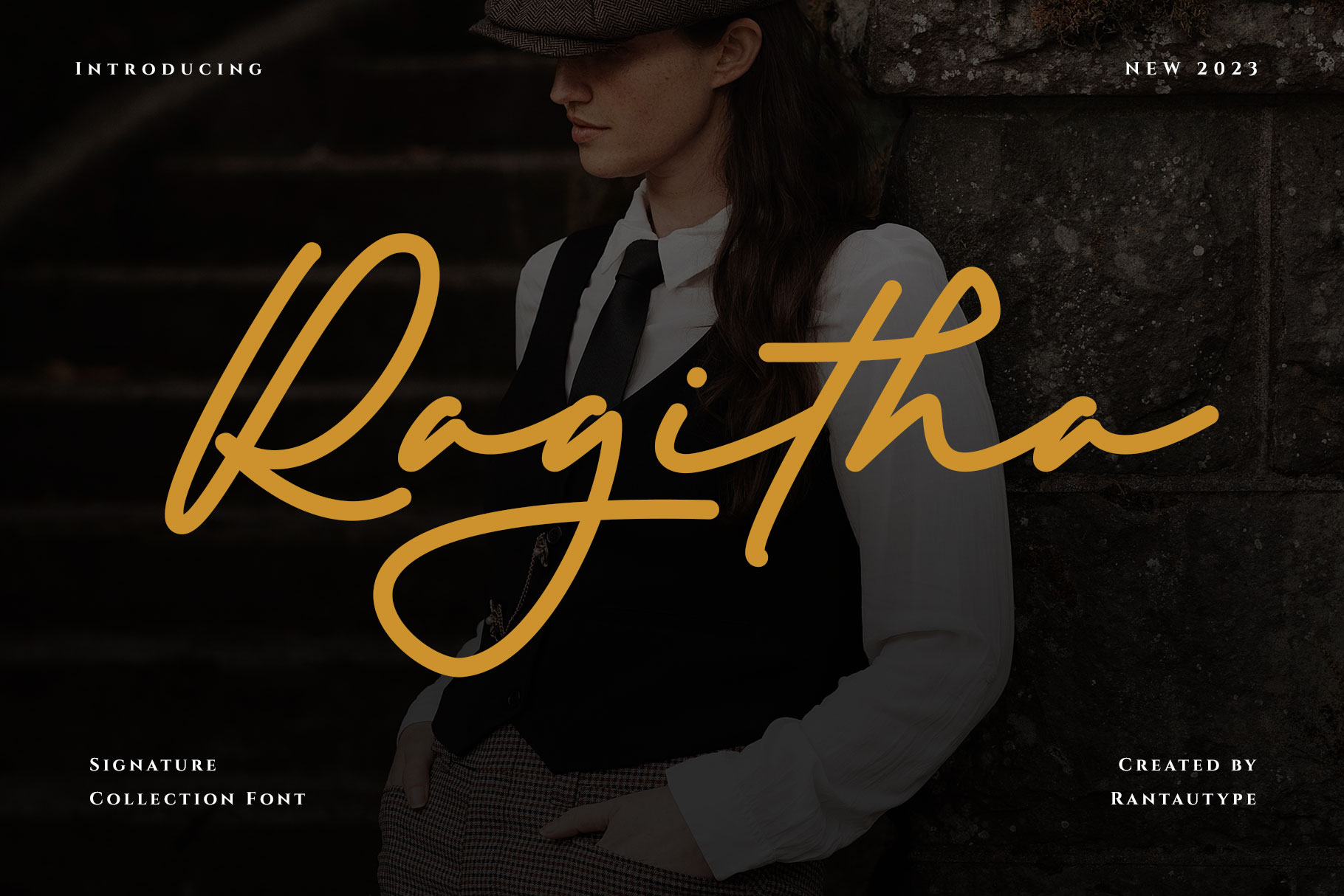
Ragitha’s signature strokes bring an exclusive feel, making it perfect for fashion house branding, influencer logos, and premium promotional material.
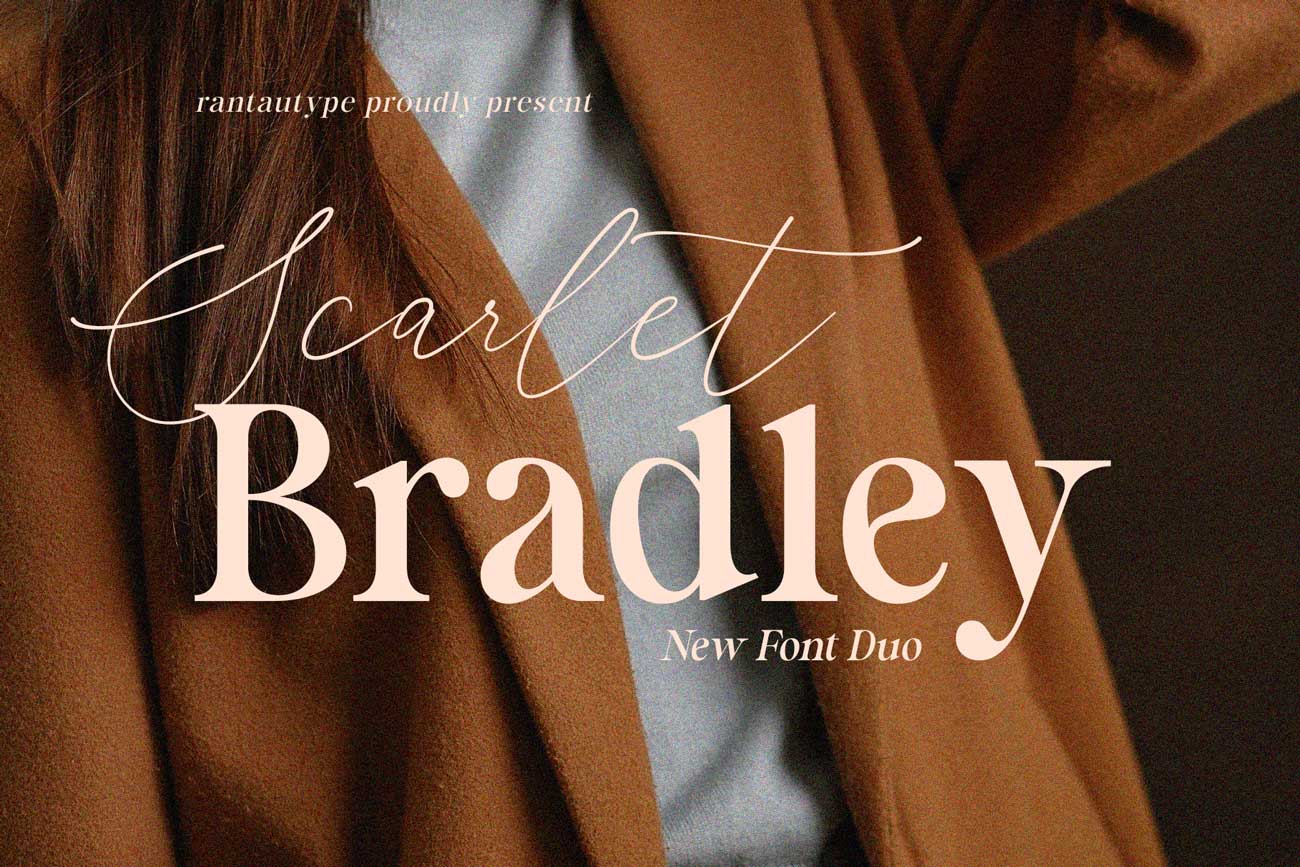
A refined fusion of serif and script styles, Scarlet Bradley is ideal for fashion brand logos, social media graphics, and editorial features in style magazines.
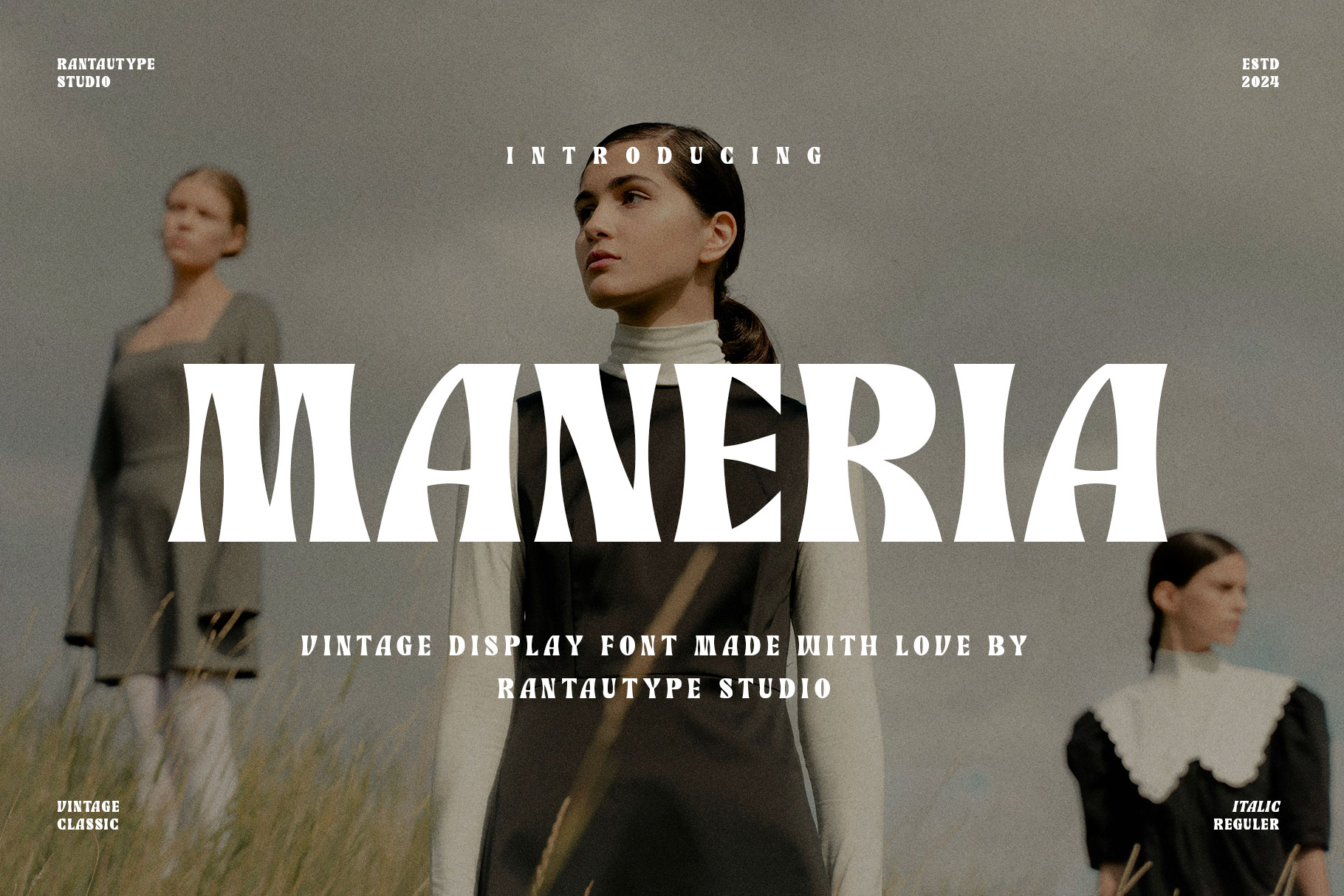
Maneria’s vintage-inspired design works wonders for retro fashion brands, high-street product collections, and nostalgic fashion campaign visuals.
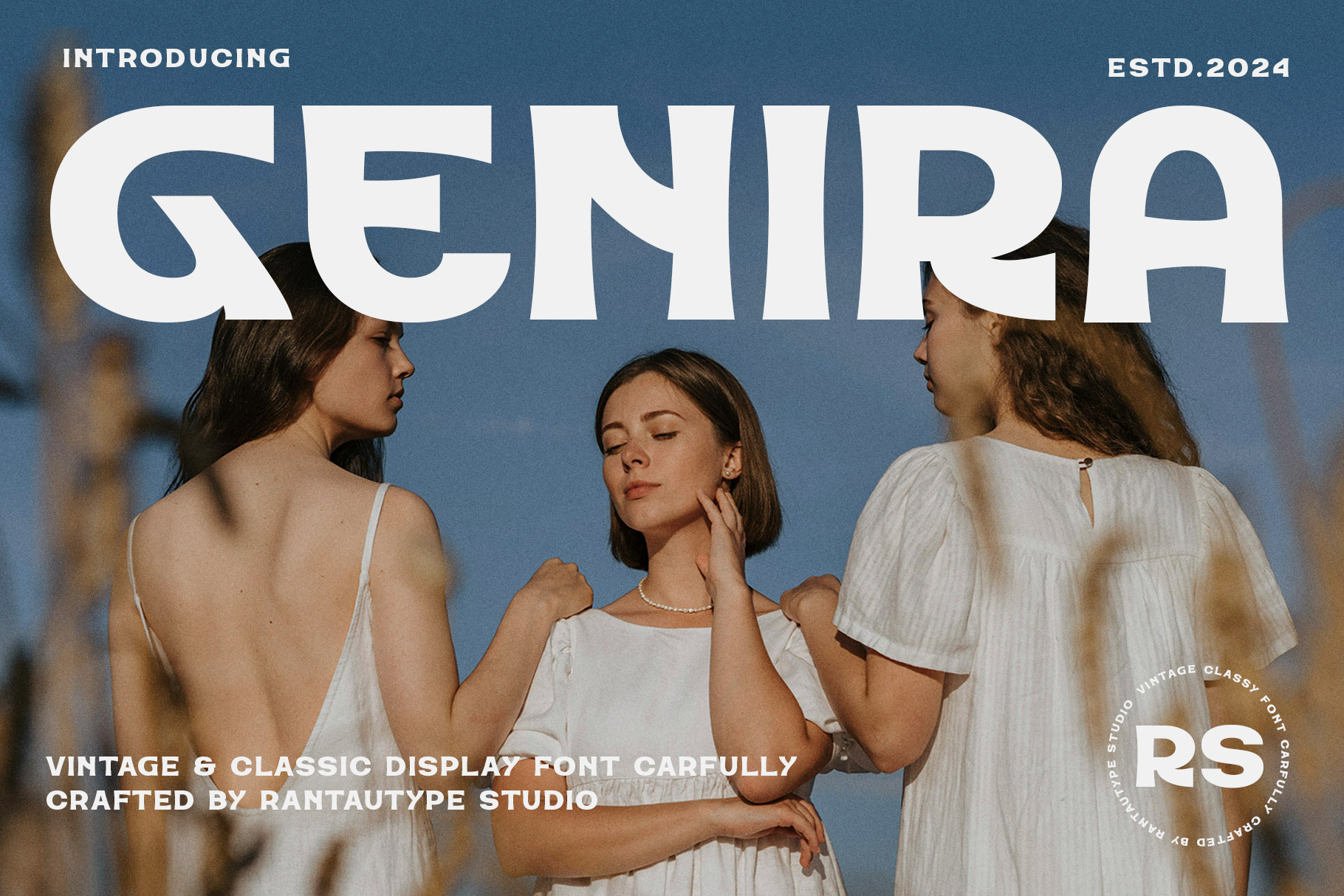
Exuding timeless charm, Genira is great for luxury fashion brand logos, vintage-inspired collections, and editorial pieces that celebrate classic fashion aesthetics.
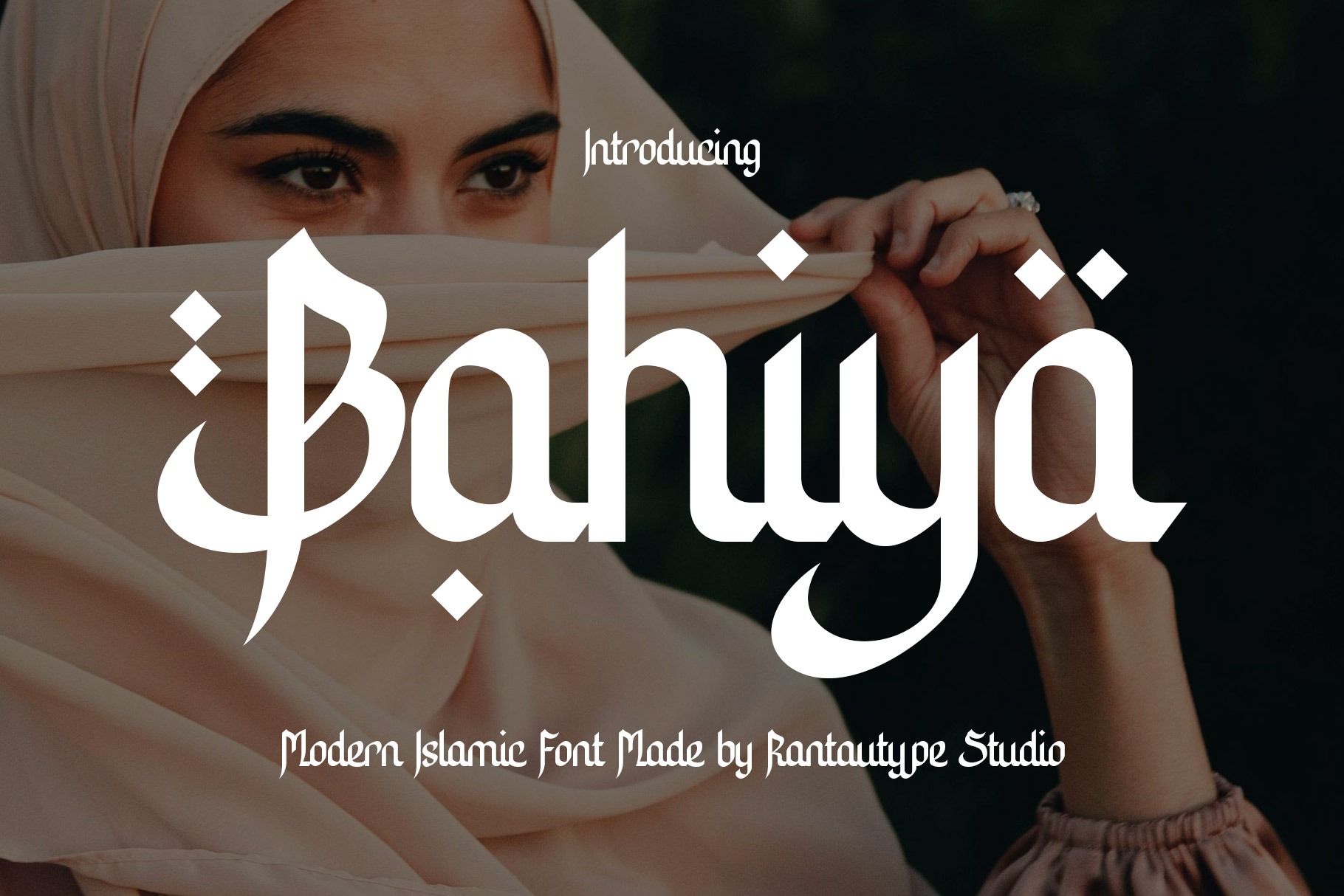
Bahiya’s fusion of traditional calligraphy and modern design is perfect for culturally rich fashion collections, luxury brand logos, and unique campaigns.
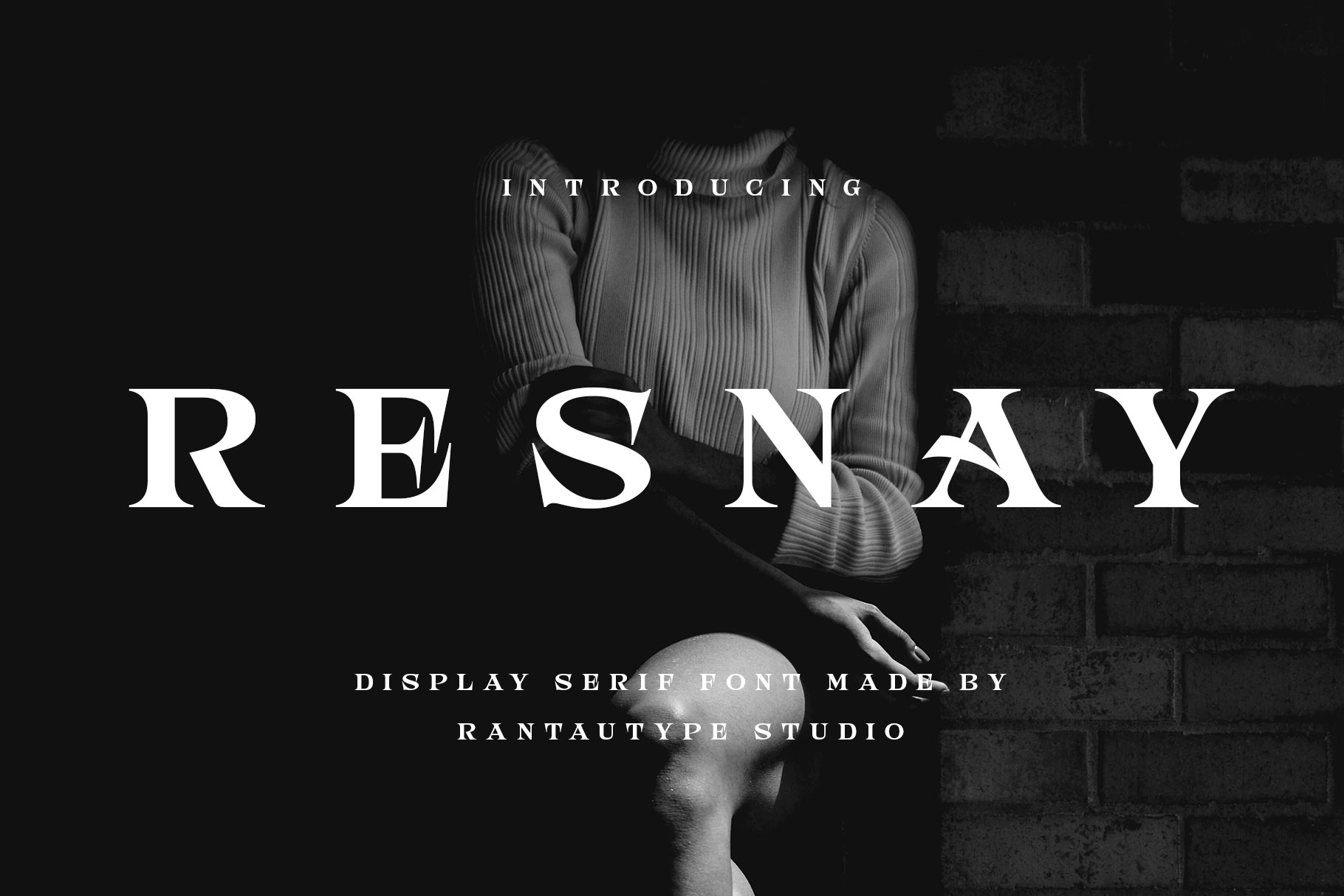
Resnay’s bold presence is well-suited for fashion ads, magazine covers, and luxury product labels, creating a sophisticated yet eye-catching impact.
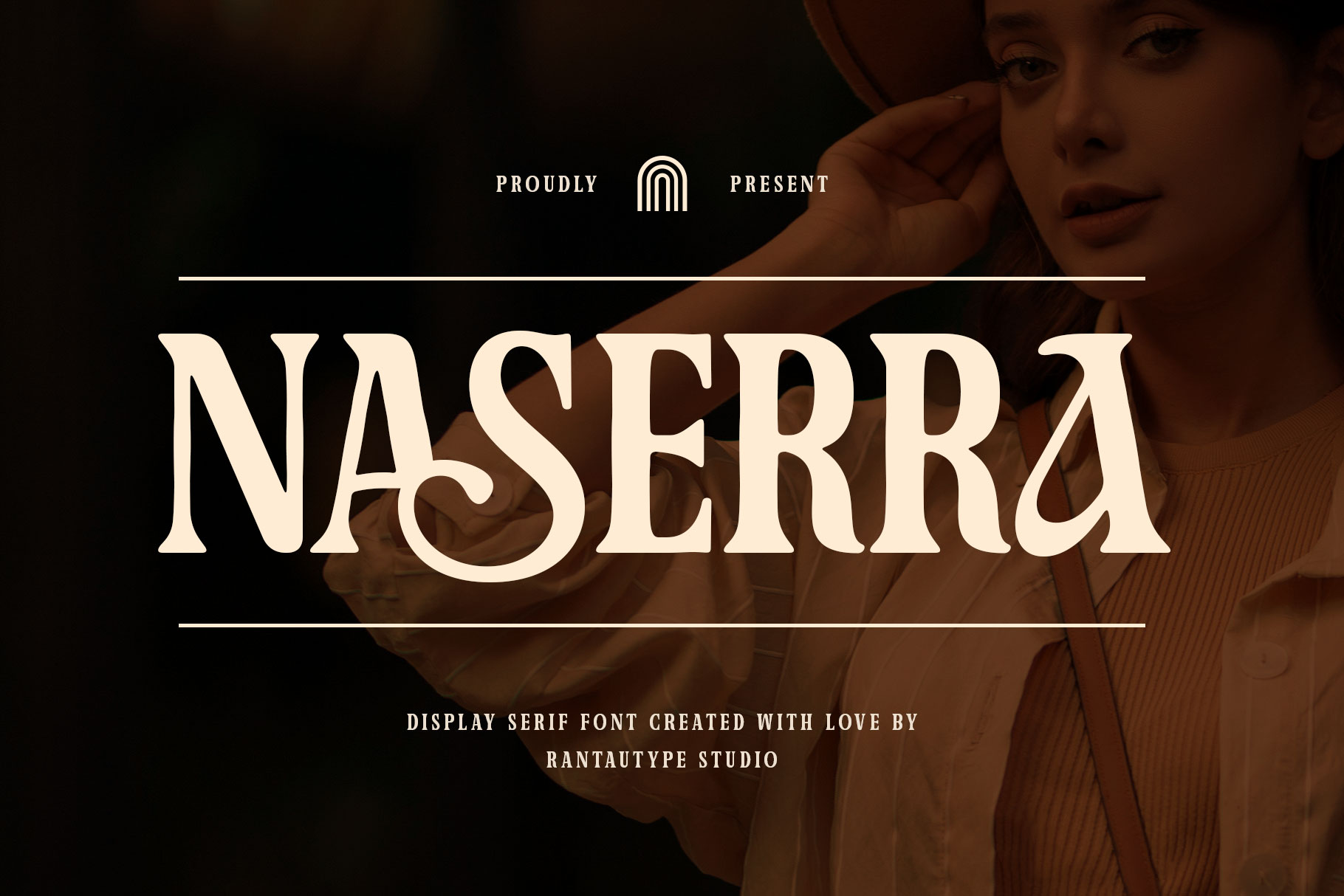
Naserra’s timeless serif style brings sophistication to fashion editorials, business branding, and high-end fashion catalogs.
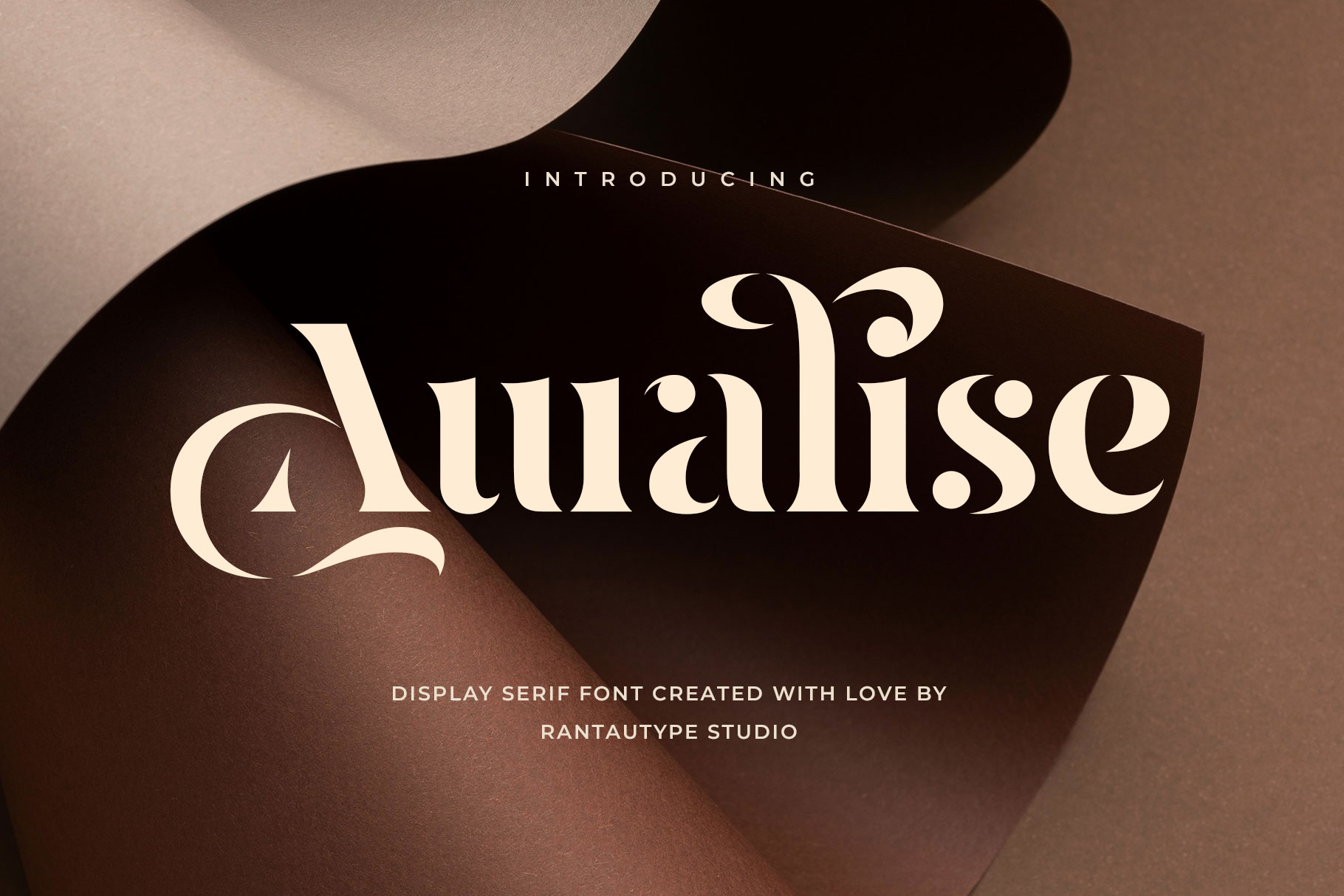
The perfect choice for upscale fashion branding, Auralise’s classic yet modern aesthetic fits luxury fashion collections, premium stationery, and VIP event invitations.
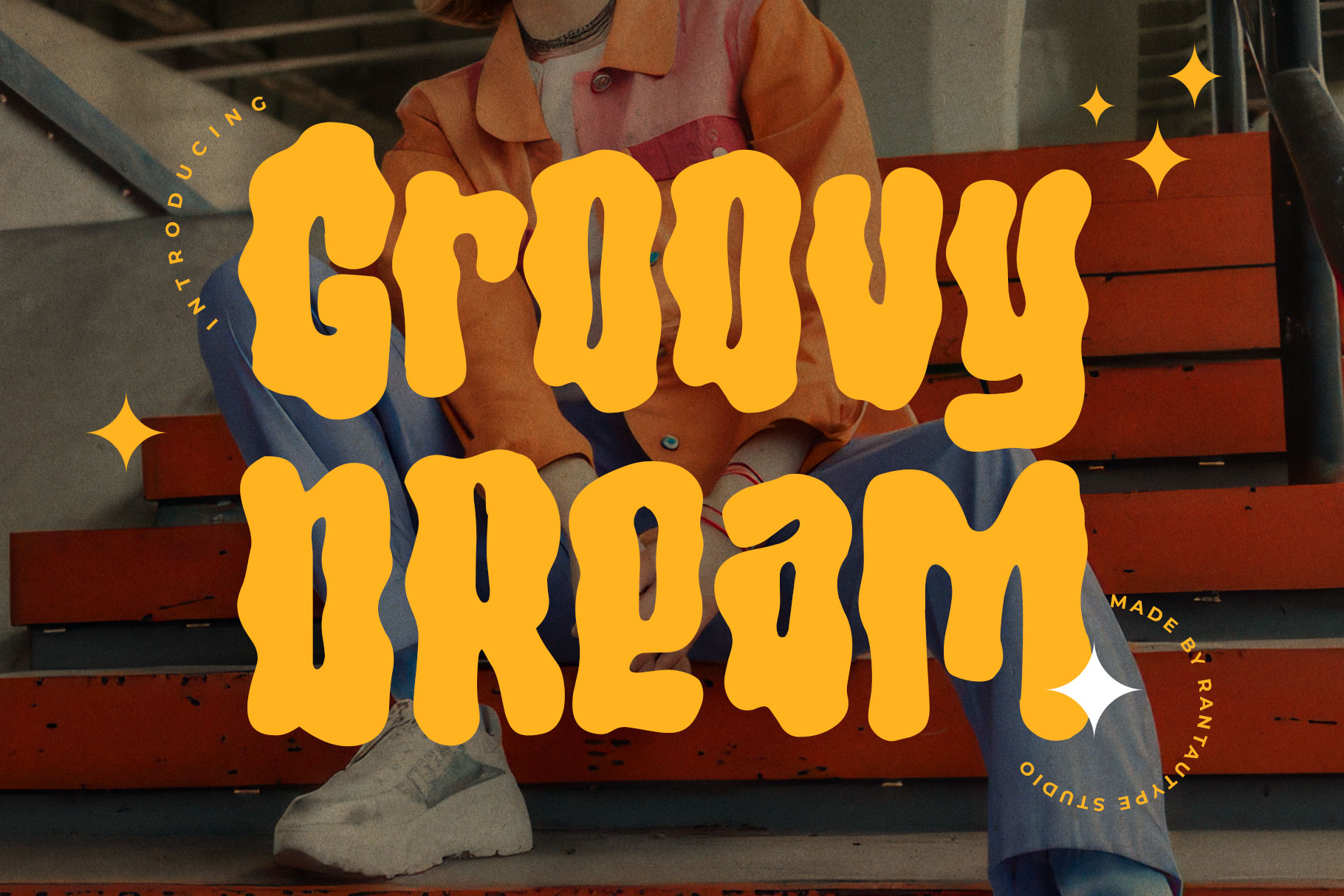
Embodying the playful spirit of the ’70s, Groovy is ideal for fun, retro-inspired fashion collections, quirky branding campaigns, and trendy fashion posters.
Gaverly’s strong presence and elegance make it a great choice for high-end fashion branding, designer packaging, and luxury product labels.
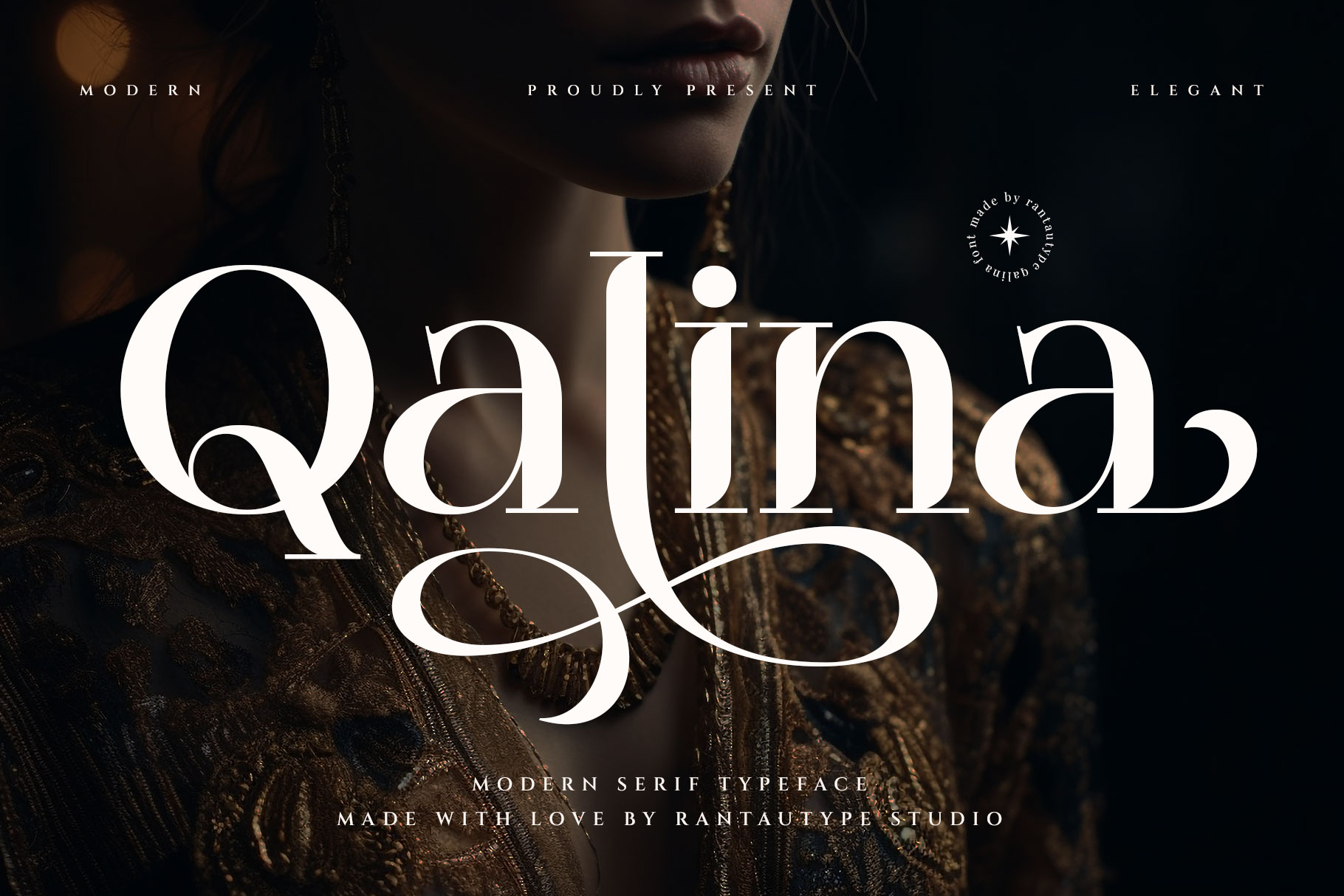
Combining modernity with readability, Qalina is perfect for online fashion retailers, sleek product listings, and advertising materials in fashion publications.
Corela’s sophisticated details are a perfect fit for luxury fashion packaging, perfume branding, and premium fashion campaigns where elegance is key.
Vestha’s timeless elegance makes it ideal for luxury fashion branding, high-profile fashion show invitations, and editorial features in fashion magazines.
A stylish italics fusion, perfect for fashion branding, luxury packaging, and editorial content with timeless elegance.
With its refined ligatures, Bellafaith is one of the best modern fonts fashion bold that adds elegance to beauty brand logos, fashion editorial layouts, and luxury packaging for high-fashion products.
Adelga’s bold, vintage style is perfect for retro fashion collections, fashion campaigns with a throwback theme, and eye-catching branding.
Gafiya’s polished look enhances fashion brand logos, upscale product branding, and boutique websites, offering a sleek and modern vibe.
Designed with sophistication in mind, Conery is ideal for premium fashion magazines, luxury editorial content, and high-profile fashion branding.
Regasti’s bold vintage style commands attention, making it a great choice for standout fashion campaigns, edgy runway collections, and dramatic ad headlines.
Hediora’s classic yet modern aesthetic fits luxury fashion collections, premium stationery, and VIP event invitations.
Benira’s vintage elegance combined with modern readability makes it ideal for both high-end fashion magazine layouts and exclusive fashion product branding.
Cenoria’s strong, bold letterforms suit luxury fashion brand logos, iconic fashion product labels, and exclusive boutique branding.
Mildora’s bold design pairs well with contemporary fashion branding, luxury product labeling, and striking fashion advertisements.
A perfect choice for modern fashion retailers, Berisa offers elegance and readability, ideal for both product branding and premium campaigns.
Rochega’s bold structure is ideal for standout fashion headlines, impactful editorial features, and eye-catching fashion ad campaigns.